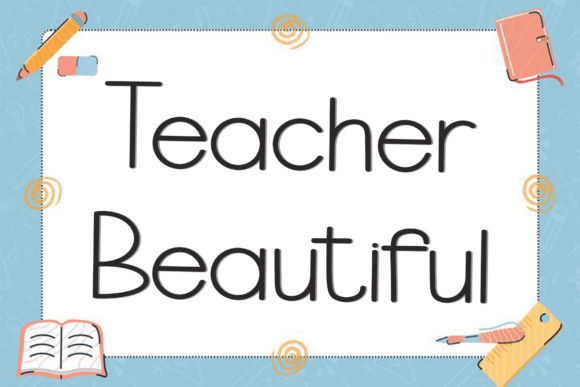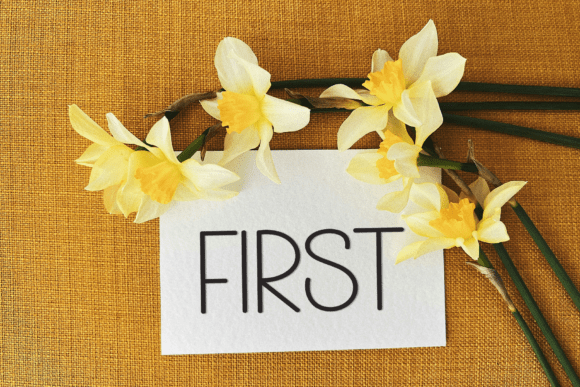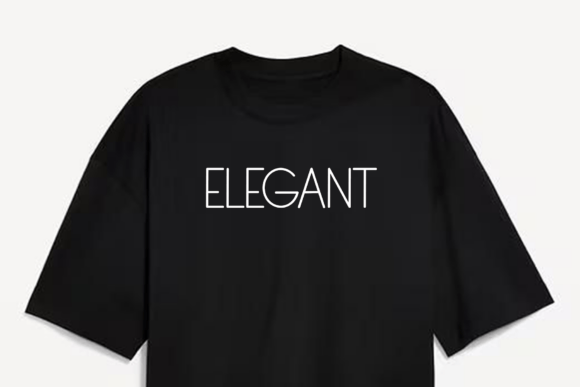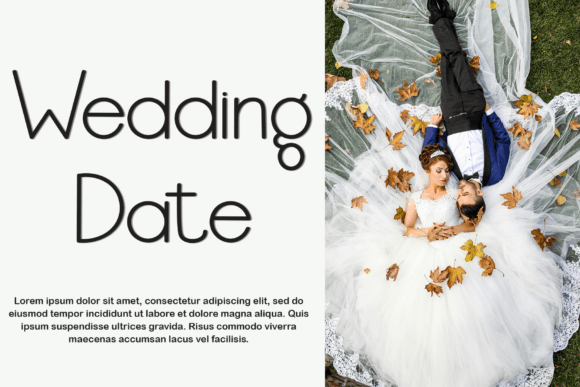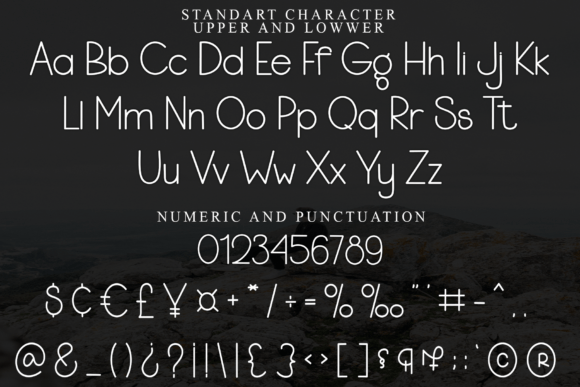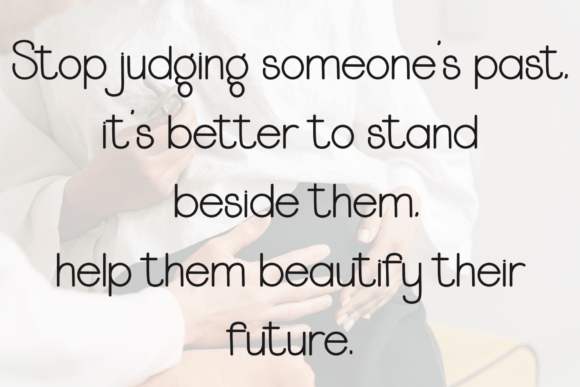
Deck the Halls with Typography: Introducing Brooklyn Font
There’s nothing quite like the feeling of unwrapping a beautifully designed holiday card or gift tag. The festive spirit of the season is often captured in the typography, and for designers, it’s a chance to get creative and add a personal touch to their projects. Whether you’re designing for a client or simply making gifts for loved ones, the right font can make all the difference.
Enter the Brooklyn Font, a festive and merry typeface that’s sure to bring a touch of enchantment to your designs. With its decorative elements and whimsical flair, this font is perfect for capturing the magic of the holiday season. And with its PUA encoding, designers can access all of the amazing glyphs and ligatures with ease, making it a valuable tool for anyone looking to add a little extra sparkle to their typography.
Brooklyn Font Key Features
- Font Family: Brooklyn is a sans-serif font family designed by Monotype.
- Font Sizes: Brooklyn is available in 8 font weights, ranging from Thin to Extra Bold.
- Character Set: Supports a wide range of languages, including Latin, Greek, and Cyrillic scripts.
- Unique Characteristics: Brooklyn features a geometric, modern design with a subtle flair, making it suitable for a wide range of applications, from digital interfaces to print materials.
- Resolution: Optimized for on-screen use at resolutions up to 300 DPI.
Brooklyn Font Review
Overall, I think Brooklyn Font is a solid choice for designers looking for a modern and elegant sans-serif typeface. ✨ Its clean lines and subtle flair make it perfect for branding and advertising materials, especially for urban or metropolitan themes.
The font is well-suited for digital applications, including websites and social media platforms. It’s also a great choice for print materials, such as business cards and brochures.
- ✨ Modern and elegant design
- ✨ Perfect for urban or metropolitan themes
- ✨ Clean lines and subtle flair
- ✨ Suitable for digital and print applications
Limitsations:
- ⚠️ Limited language support (only Latin and Cyrillic alphabets)
- ⚠️ May not be suitable for complex or technical texts
- ⚠️ Some users may find it too minimalist or bland
Overall, I think Brooklyn Font is a great choice for designers who want a clean and modern sans-serif typeface. While it has some limitations, it’s a solid option for branding and advertising materials.
The Brooklyn font is ideal for:
1. Creating modern and stylish designs.
2. Adding a touch of sophistication to your branding materials.
3. Creating eye-catching headings and titles.